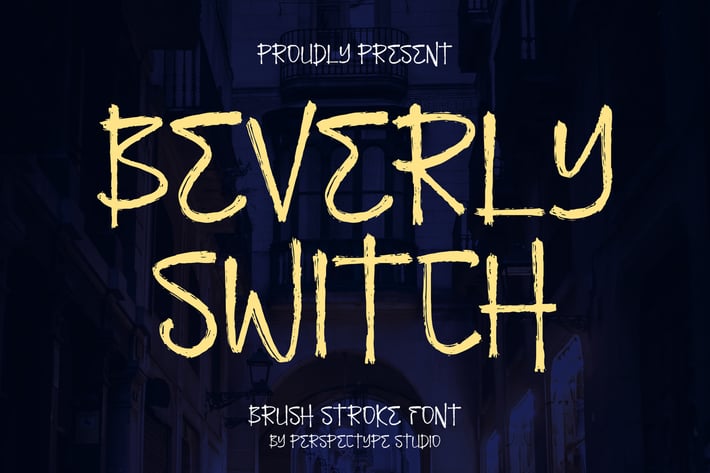
Beverly Switch Brush Stroke Font
Beverly Switch is a raw and energetic brush stroke font built to deliver bold, rebellious impact in every word. With its rough hand-painted texture and edgy strokes, this typeface is perfect for posters, streetwear branding, music visuals, spooky themes, and designs that need loud personality.
Gritty brush stroke style with strong hand-painted texture
Eye-catching display look for headlines and posters
Organic strokes that add attitude and movement
Works great for dark themes, horror, and urban designs
Horror posters & spooky designs
Streetwear branding and merch
Music covers & event flyers
Bold quotes and social media graphics
Game titles & cinematic headers
Loud, gritty, and unapologetic — a brush font made to hit hard and stay memorable.*